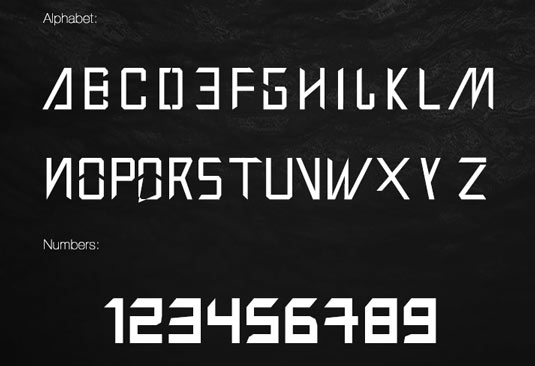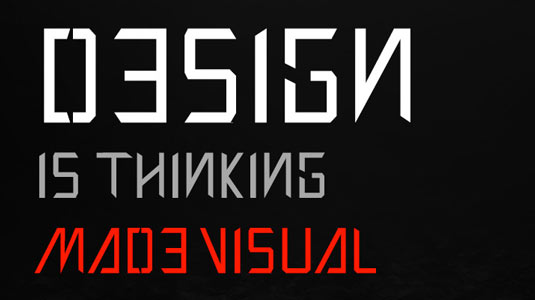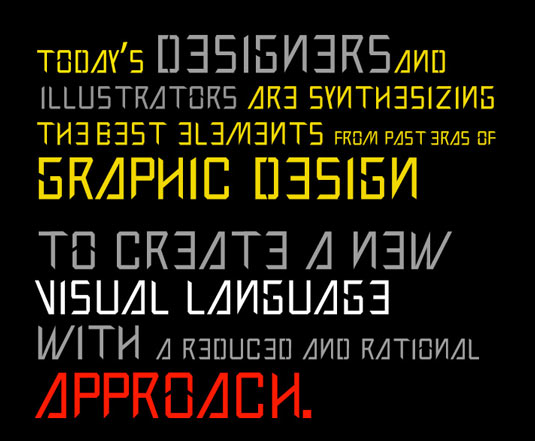
Font of the day: Pegasus
Pegasus by Karolis Bingelis
Pegasus is an uppercase typeface by graphic and fashion deisgner Karolis Bingelis. Recommended to use at size 48 or larger, this typeface is available as a free download. Simply contact Bingelis directly via her website to get the link.